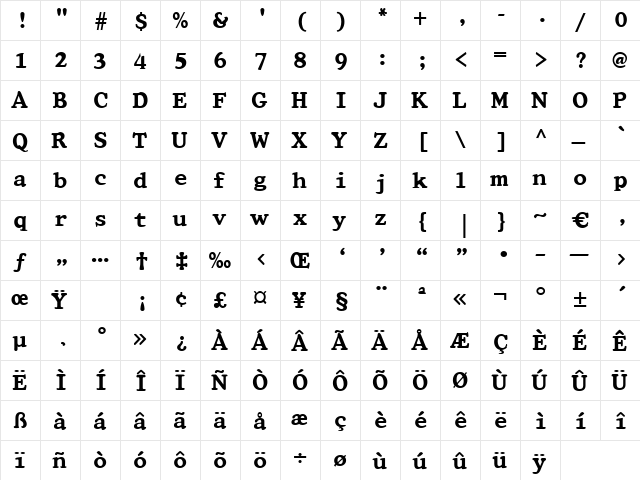
Konstanza Regular
Design Context for Konstanza Typeface
Konstanza takes a measured approach to typography — its balanced proportions and neutral character make it a reliable workhorse for both digital and print work.